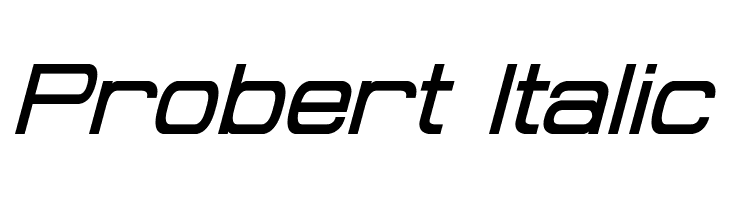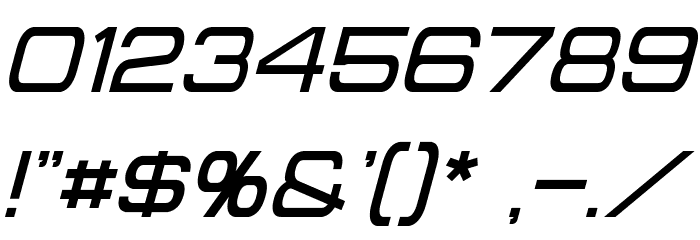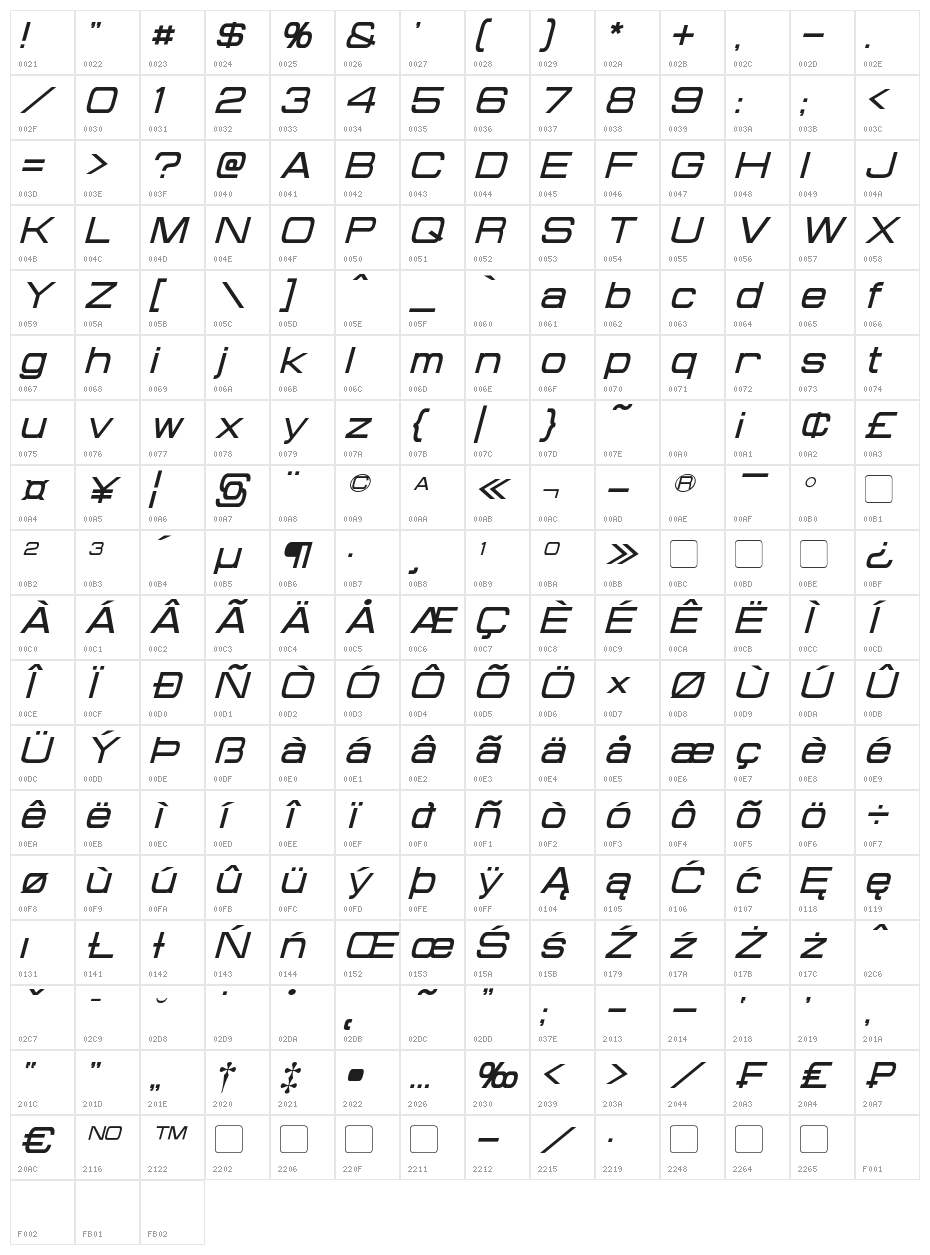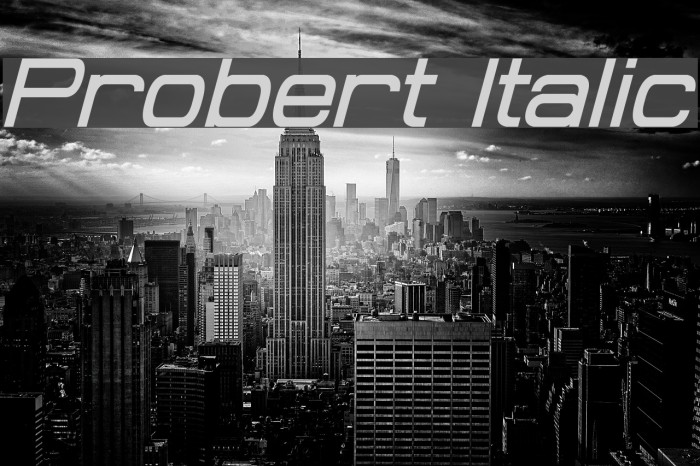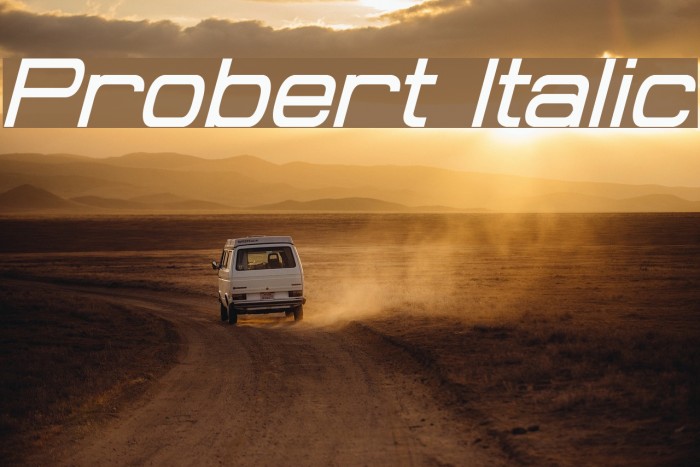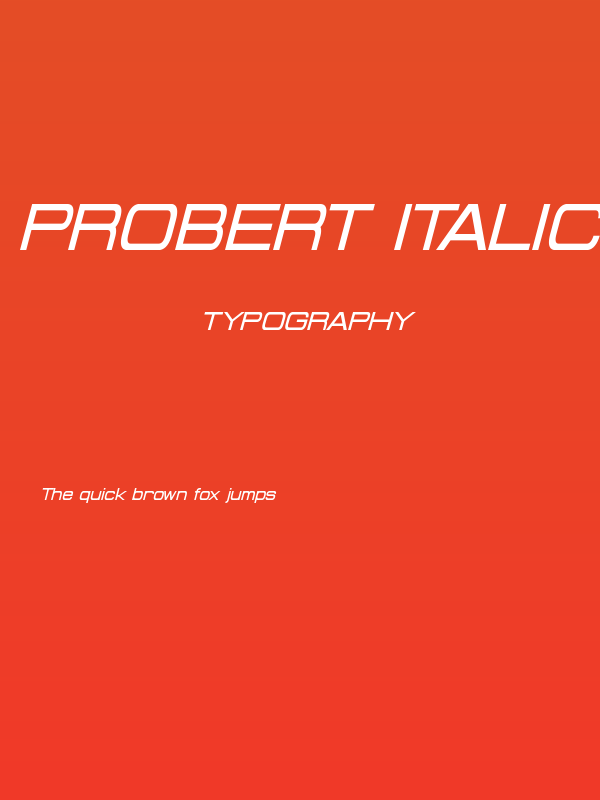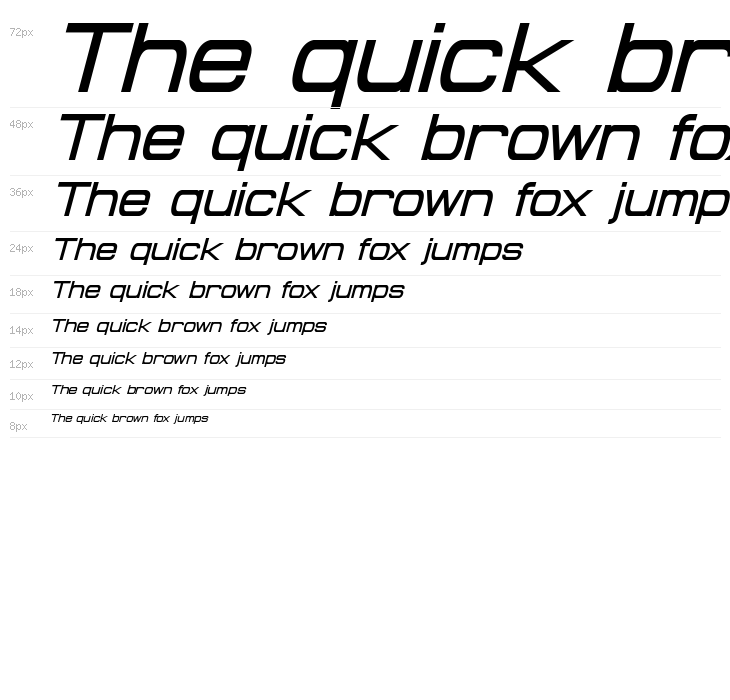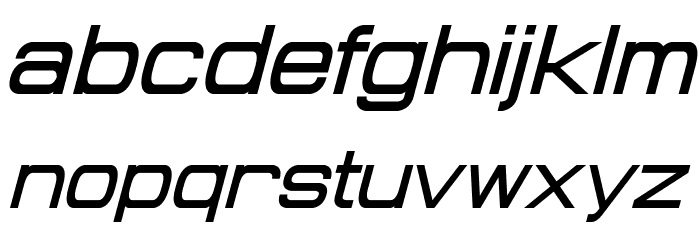
Probert Italic Font
Probert Italic Description
This font features a sleek, italicized design with a modern and dynamic appearance. The characters are slightly slanted, giving a sense of motion and elegance. The uppercase and lowercase letters maintain a consistent style, with smooth curves and sharp edges that enhance readability. The numerals are clear and distinct, matching the overall aesthetic of the alphabet. Special characters are well-integrated, ensuring versatility in various design contexts. The font's clean lines and contemporary feel make it suitable for a wide range of applications.
| Proposed Projects | Ideal for branding, advertising, and editorial design projects that require a modern and sophisticated touch. |